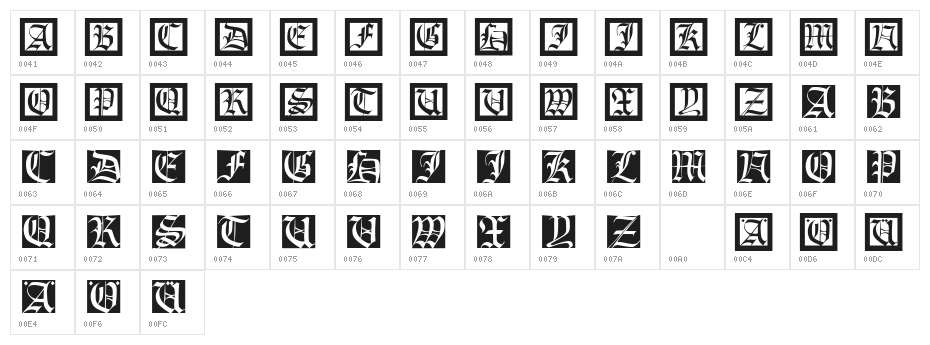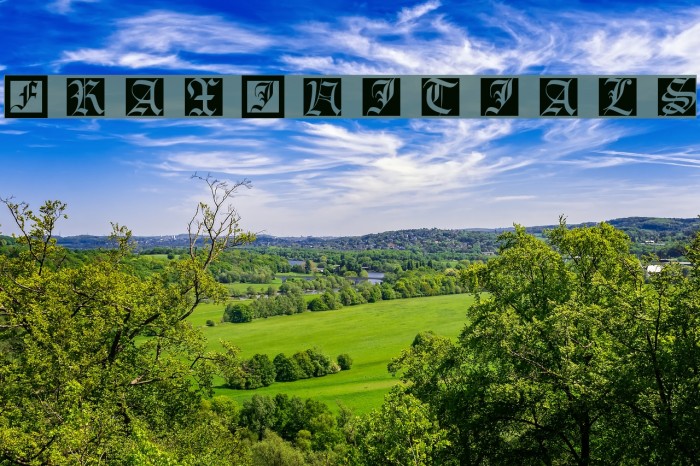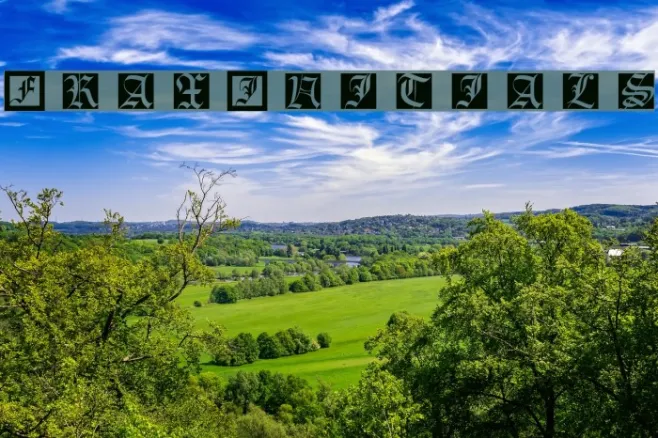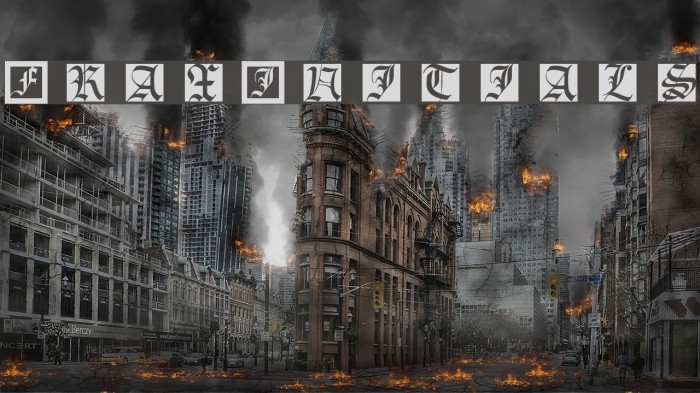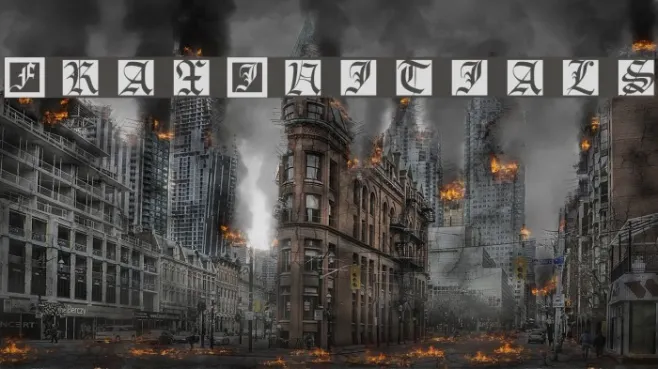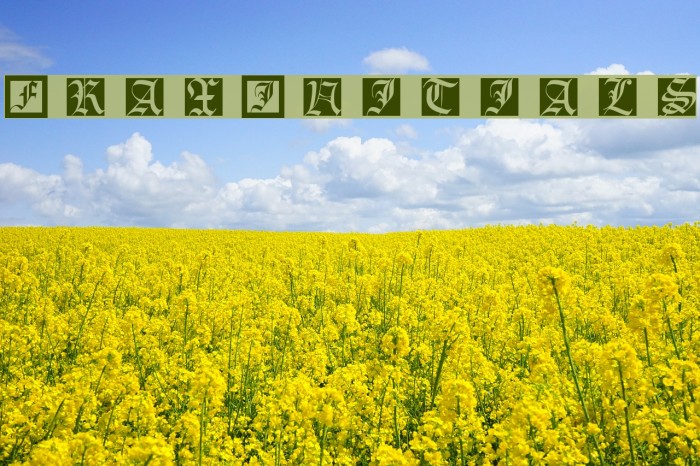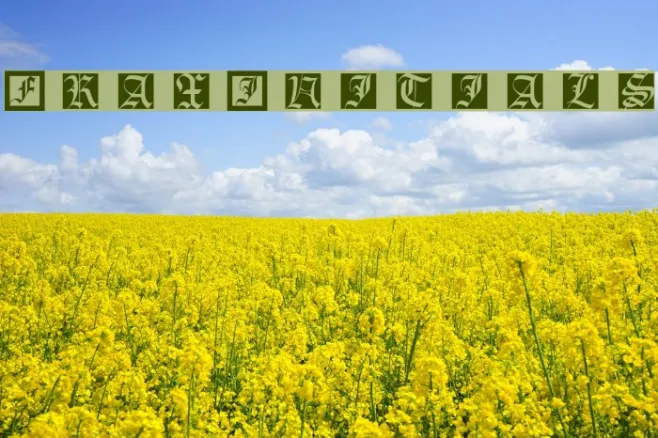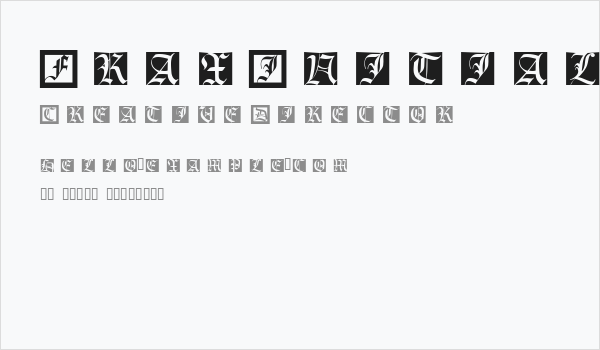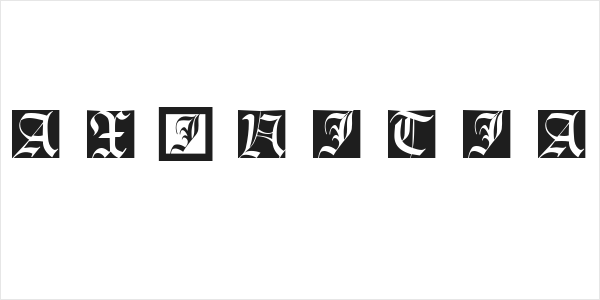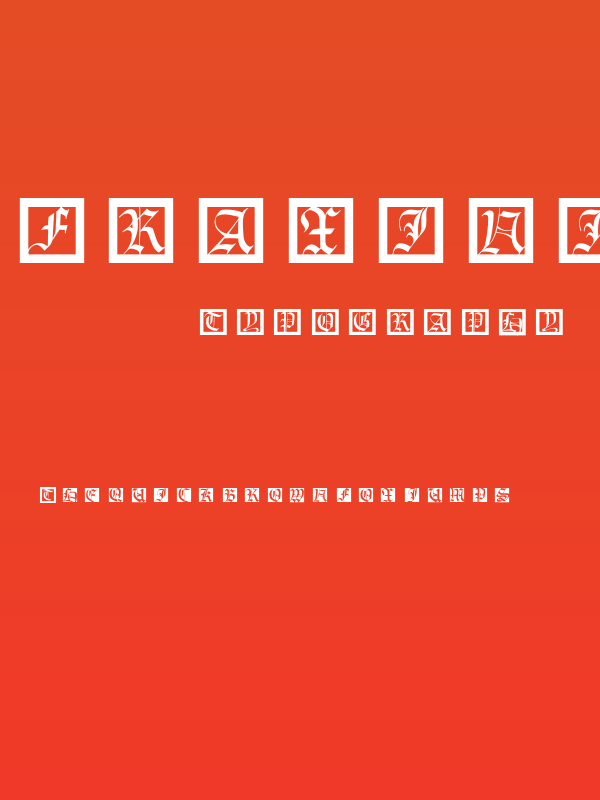
FraxInitials Font
FraxInitials Description
This font features a bold and decorative style, with each letter enclosed in a square frame. The characters are reminiscent of medieval or Gothic script, with intricate detailing and sharp edges. The uppercase letters are highly stylized, with a strong emphasis on vertical lines and angular shapes. The font does not include lowercase letters or numbers, focusing solely on uppercase initials. The design is striking and eye-catching, making it suitable for projects that require a dramatic and historical aesthetic.
| Overall Style | Gothic, Decorative |
| Proposed Projects | Ideal for use in logos, book covers, posters, and any design requiring a medieval or historical theme. |